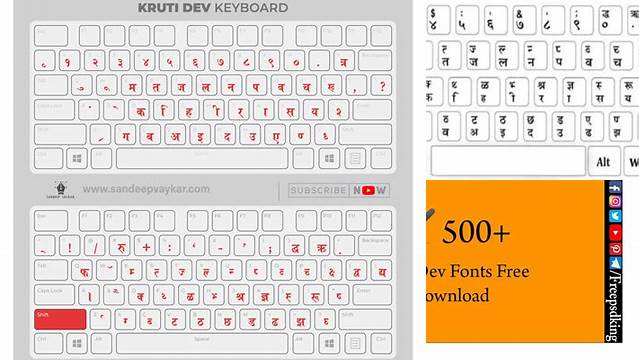
Kruti Dev Marathi Font: Free Download & Stylish Guide
1. Introduction to Kruti Dev Marathi Fonts
Kruti Dev is a widely used font family for typing in Marathi and Hindi languages, especially favored for its compatibility with various software and its traditional typewriter-like appearance. The Kruti Dev Marathi stylish font free download has become a common search term for individuals and organizations seeking to digitize Marathi content. These fonts are not just about aesthetics; they represent a significant part of digital Marathi literature and communication. Understanding the nuances of Kruti Dev and its various styles can greatly enhance your Marathi typing experience. Whether you are drafting official documents, creating artistic designs, or simply communicating with friends and family, the right Kruti Dev font can make a world of difference. The accessibility of free downloads further democratizes the use of these fonts, ensuring that Marathi language content can be created and shared widely. Remember, choosing the right font is more than just picking a style; it's about ensuring readability and cultural relevance in the digital sphere. So, let's delve deeper into the world of Kruti Dev and discover the perfect style for your needs!
2. Why Kruti Dev is Popular for Marathi Typing
The popularity of Kruti Dev for Marathi typing stems from several key factors. First and foremost, it's a legacy font that has been around for a long time, making it a standard in many government offices, educational institutions, and publishing houses. This widespread adoption means that documents created in Kruti Dev are easily shareable and viewable across different systems. Furthermore, Kruti Dev's layout closely resembles that of traditional typewriters, which many users find familiar and comfortable. This familiarity reduces the learning curve for those transitioning from typewriters to digital typing. Another reason for its popularity is the availability of numerous free downloads, making it accessible to everyone, regardless of their budget. Additionally, Kruti Dev is compatible with a wide range of software, including popular word processors and design applications. This compatibility ensures that users can seamlessly integrate Kruti Dev fonts into their existing workflows. Finally, the font's clear and legible design makes it suitable for both print and digital media, ensuring that your Marathi text looks professional and easy to read. The combination of these factors has cemented Kruti Dev's position as a go-to font for Marathi typing.
5. Different Styles and Variations of Kruti Dev Fonts
Kruti Dev isn't just a single font; it's a family of fonts that includes various styles and variations, each with its own unique aesthetic. Understanding these differences can help you choose the perfect font for your specific needs. Some common variations include Kruti Dev 010, Kruti Dev 020, and Kruti Dev 030, among others. Each variation has slight differences in character design and spacing, which can affect readability and visual appeal. For example, some variations might have bolder characters, while others might have more delicate strokes. Some styles are better suited for formal documents, while others are ideal for creative projects. Exploring the different styles within the Kruti Dev family allows you to add visual interest and personality to your Marathi text. When selecting a font, consider the purpose of your document and the overall tone you want to convey. A stylish font can make your text stand out, but it's also important to ensure that the font is legible and appropriate for the context. Experiment with different variations to find the one that best suits your needs and enhances your Marathi typing experience.
7. Typing Marathi with Kruti Dev: Keyboard Layouts and Tips
Typing Marathi with Kruti Dev requires understanding the font's unique keyboard layout, which differs significantly from the standard English QWERTY layout. Mastering this layout is crucial for efficient and accurate Marathi typing. The Kruti Dev keyboard layout is phonetic, meaning that the keys are mapped to sounds rather than characters. This can be initially challenging for those accustomed to English typing, but with practice, it becomes intuitive. There are various resources available online, such as keyboard layout diagrams and typing tutorials, that can help you learn the layout. It's also helpful to use typing practice software or websites that offer exercises specifically designed for Kruti Dev. One tip for improving your typing speed is to focus on learning the placement of the most frequently used characters first. You can also customize your keyboard layout using third-party software to better suit your personal preferences. Another helpful tip is to use online transliteration tools to convert English text into Marathi Kruti Dev, which can be useful for learning the layout and checking your typing. Remember, consistent practice is key to mastering Marathi typing with Kruti Dev. Understanding the keyboard layout and utilizing available resources will greatly enhance your typing skills and efficiency after your Kruti Dev Marathi stylish font free download.
8. Converting Other Fonts to Kruti Dev
Sometimes, you might encounter Marathi text written in other fonts and need to convert it to Kruti Dev for compatibility or editing purposes. Fortunately, several online tools and software programs can help you convert other fonts to Kruti Dev and vice versa. These converters typically work by mapping the characters from the source font to the corresponding characters in Kruti Dev. To use an online converter, simply copy and paste the text into the input box, select the source and target fonts, and click the convert button. The converted text will then be displayed in the output box, which you can copy and paste into your document. For more complex conversions or large documents, it might be more efficient to use a dedicated software program. Some popular font conversion software includes features like batch conversion, which allows you to convert multiple files at once. When converting fonts, it's important to check the converted text carefully for any errors or inconsistencies. Sometimes, certain characters might not be converted correctly, especially if the source font uses a different encoding system. Using font conversion tools can save you a significant amount of time and effort when working with Marathi text in different font formats after your Kruti Dev Marathi stylish font free download.
9. Common Issues and Troubleshooting with Kruti Dev
While Kruti Dev is a widely used font, users sometimes encounter issues when working with it. Understanding these common problems and knowing how to troubleshoot them can save you frustration and time. One common issue is that the font doesn't appear correctly in certain software applications. This can be due to various reasons, such as the font not being properly installed, the software not supporting the font, or conflicting fonts installed on the system. To resolve this, ensure that the font is correctly installed and that the software is compatible with Kruti Dev. Try restarting the software or your computer to see if that fixes the issue. Another common problem is that the Marathi characters appear as boxes or question marks. This usually indicates that the font is not selected or that the document is not encoded correctly. Make sure that Kruti Dev is selected as the font and that the document is saved in a Unicode encoding format. If you're having trouble with the keyboard layout, double-check that the correct Marathi keyboard layout is selected in your operating system settings. If you encounter any other issues, consult online forums or documentation for Kruti Dev for specific troubleshooting steps. Addressing these common issues will ensure a smoother experience with Kruti Dev Marathi fonts after your Kruti Dev Marathi stylish font free download.
10. Kruti Dev Font for Government and Official Documents
Kruti Dev font holds significant importance in government and official document creation in Maharashtra and other regions where Marathi is widely used. Its widespread adoption in government offices and legal institutions makes it a standard for official correspondence and documentation. The clarity and legibility of Kruti Dev make it suitable for formal documents, ensuring that the text is easy to read and understand. Additionally, its long-standing use in these sectors ensures compatibility across various systems and software. Many government forms, notices, and legal documents are drafted in Kruti Dev to maintain uniformity and professionalism. The font's traditional typewriter-like appearance also conveys a sense of formality and authenticity. When creating official documents in Marathi, using Kruti Dev helps ensure that the text meets the required standards and is easily accessible to a wide audience. Furthermore, government websites and online portals often use Kruti Dev for displaying Marathi content, making it essential for digital communication as well. The preference for Kruti Dev in government sectors underscores its importance in preserving Marathi language and culture in official settings. Therefore, understanding and utilizing Kruti Dev is crucial for anyone working with Marathi in government or legal contexts after your Kruti Dev Marathi stylish font free download.
11. Using Kruti Dev in Graphic Design and Creative Projects
While Kruti Dev is often associated with formal documents, it can also be effectively used in graphic design and creative projects. Its versatility allows designers to incorporate Marathi text into various visual mediums, such as posters, brochures, and websites. By using Kruti Dev Marathi stylish font free download, designers can add a touch of traditional elegance to their creations while ensuring readability. When using Kruti Dev in design projects, it's important to consider the overall aesthetic and choose a style that complements the visual elements. Experimenting with different font sizes, weights, and styles can help achieve the desired effect. Kruti Dev can be combined with other fonts to create interesting typographic compositions. For instance, you can use Kruti Dev for body text and a more modern font for headings. It's also crucial to ensure that the Marathi text is properly aligned and spaced to maintain visual harmony. Using graphic design software like Adobe Photoshop or Illustrator provides greater control over typography and allows for more creative use of Kruti Dev. Whether you're designing a poster for a Marathi cultural event or creating a website for a local business, Kruti Dev can be a valuable asset in conveying your message effectively and aesthetically.
12. Kruti Dev and Unicode Compatibility
One important aspect to consider when working with Kruti Dev is its compatibility with Unicode, the universal character encoding standard. Kruti Dev is a non-Unicode font, meaning it uses a proprietary encoding scheme that differs from Unicode. This can sometimes lead to compatibility issues when sharing documents or displaying text on different systems. Unicode fonts, such as Mangal, are generally preferred for modern applications and web content because they ensure consistent display across platforms and languages. However, Kruti Dev remains widely used in many contexts, so it's essential to understand the implications of its non-Unicode nature. When working with Kruti Dev, it's crucial to ensure that the document is saved in a format that preserves the font encoding. Using font conversion tools to switch between Kruti Dev and Unicode fonts can help mitigate compatibility issues. Additionally, many online platforms and software applications now support automatic font conversion, making it easier to work with Kruti Dev in diverse environments. Understanding the relationship between Kruti Dev and Unicode is crucial for ensuring the accurate display and exchange of Marathi text after your Kruti Dev Marathi stylish font free download.
13. Alternatives to Kruti Dev for Marathi Typing
While Kruti Dev remains a popular choice for Marathi typing, several alternatives offer similar functionality and improved Unicode compatibility. Exploring these alternatives can broaden your font selection and enhance your typing experience. One of the most widely used Unicode fonts for Marathi is Mangal, which is included with Microsoft Windows and offers excellent cross-platform compatibility. Other popular Unicode fonts for Marathi include Shivaji, Aparajita, and Kalka. These fonts provide clear and legible characters while adhering to the Unicode standard, ensuring consistent display across different devices and applications. Using Unicode fonts also simplifies tasks like web publishing and data exchange. In addition to Unicode fonts, some users also prefer transliteration-based typing methods, which allow you to type Marathi using a standard English keyboard layout. These methods use software or online tools to convert phonetic input into Marathi script. Exploring different typing methods and font options can help you find the most efficient and convenient way to type in Marathi. Whether you stick with Kruti Dev or explore alternatives, understanding the available options empowers you to make informed decisions about your Marathi typing workflow. The Kruti Dev Marathi stylish font free download might be your starting point, but it's always good to know your options.
14. Kruti Dev Training and Tutorials
Learning to type efficiently in Kruti Dev can take some practice, but numerous training resources and tutorials are available online to help you master the font. These resources cater to different learning styles and skill levels, making it easier for beginners to get started and for experienced typists to refine their skills. Many websites offer free typing tutorials that cover the Kruti Dev keyboard layout, common typing techniques, and tips for improving speed and accuracy. Video tutorials can be particularly helpful for visual learners, providing step-by-step instructions on how to type specific characters and words. Some websites also offer interactive typing games and exercises that make learning fun and engaging. For more structured training, you can consider enrolling in online courses or workshops that focus on Marathi typing. These courses often provide personalized feedback and guidance, helping you identify and overcome your typing challenges. Practicing regularly and utilizing these resources will significantly improve your Kruti Dev typing skills. Remember, consistency is key to mastering any new skill, so dedicate some time each day to practice and gradually increase your typing speed and accuracy after your Kruti Dev Marathi stylish font free download.
15. Kruti Dev Font for Web Design
Using Kruti Dev in web design can be challenging due to its non-Unicode nature. However, with the right techniques, you can effectively incorporate Kruti Dev into your website design while ensuring readability and compatibility. One approach is to use font embedding techniques, such as CSS @font-face, to include the Kruti Dev font file directly on your website. This allows visitors to view the font even if they don't have it installed on their systems. However, it's important to consider the file size of the font and optimize it for web use to avoid slowing down your website's loading time. Another approach is to convert the Kruti Dev text into images or SVG graphics, which can then be displayed on the website. This ensures that the text appears exactly as intended but might make the content less accessible to search engines and screen readers. A more modern and recommended approach is to use Unicode fonts for web content and convert existing Kruti Dev text to Unicode using online tools or software. This ensures better compatibility and accessibility while maintaining the visual integrity of the text. When using Kruti Dev or any non-Unicode font on the web, it's crucial to test your website on different browsers and devices to ensure consistent display. Balancing aesthetics with functionality is key when incorporating Kruti Dev into your web design projects. The Kruti Dev Marathi stylish font free download is just the first step; making it work online requires careful planning.
16. Kruti Dev and Marathi Language Preservation
Kruti Dev font plays a vital role in the preservation of the Marathi language and literature in the digital age. Its widespread use in various sectors, including government, education, and publishing, helps ensure that Marathi content remains accessible and relevant. By providing a standardized font for Marathi typing, Kruti Dev facilitates the creation and sharing of digital content in the language. This is particularly important for preserving traditional Marathi literature, which can be digitized and made available to a wider audience. Additionally, Kruti Dev supports the creation of new Marathi content, such as books, articles, and online resources, which contributes to the growth and evolution of the language. The accessibility of free Kruti Dev fonts also empowers individuals to create and share their own Marathi content, fostering a vibrant online community. However, it's also important to promote the use of Unicode fonts for long-term compatibility and accessibility. Balancing the use of Kruti Dev with Unicode fonts can help ensure that Marathi language and culture thrive in both traditional and digital contexts. The Kruti Dev Marathi stylish font free download is a tool for language preservation, but it's how we use it that truly matters.
17. Kruti Dev Font Licensing and Usage Rights
Before using Kruti Dev fonts, it's essential to understand the licensing and usage rights associated with them. While many Kruti Dev fonts are available for free download, it's crucial to verify the licensing terms to ensure you're using the font legally. Most free Kruti Dev fonts are licensed under terms that allow for personal and non-commercial use. However, commercial use, such as using the font in a logo or for-profit project, might require a specific license or permission from the font's creator. It's always a good practice to check the licensing information provided with the font or on the website where you downloaded it. Some websites might offer fonts under different licenses, such as open-source licenses, which allow for broader usage rights. When using Kruti Dev fonts in commercial projects, it's advisable to obtain a commercial license to avoid any potential copyright issues. Additionally, be aware of any restrictions on modifying or redistributing the font. Understanding the licensing terms ensures that you're using Kruti Dev fonts responsibly and legally. So, while you enjoy your Kruti Dev Marathi stylish font free download, remember to respect the creator's rights.
18. The Future of Kruti Dev in the Digital World
The future of Kruti Dev in the digital world is intertwined with the ongoing evolution of technology and language computing. While Unicode fonts are becoming increasingly prevalent, Kruti Dev still holds a significant place in many sectors, particularly in government and legacy systems. However, the shift towards Unicode is inevitable, and it's important to consider how Kruti Dev can adapt to this changing landscape. One potential future for Kruti Dev is through conversion tools and compatibility solutions that allow seamless integration with Unicode-based systems. This would enable users to continue working with Kruti Dev while ensuring compatibility with modern platforms and applications. Another possibility is the development of Unicode-compatible fonts that closely resemble the Kruti Dev aesthetic, providing a smooth transition for users accustomed to the font. Additionally, efforts to preserve Kruti Dev encoding and typing methods can help maintain its legacy and ensure that historical documents and content remain accessible. Ultimately, the future of Kruti Dev depends on balancing its legacy with the need for modern standards and compatibility. The Kruti Dev Marathi stylish font free download is a piece of history, but its future is yet to be written.
19. Kruti Dev vs. Unicode Fonts: A Comparison
When it comes to Marathi typing, the debate between Kruti Dev and Unicode fonts is a significant one. Understanding the differences between these two font types is crucial for making informed decisions about your typing workflow. Kruti Dev, as a non-Unicode font, uses a proprietary encoding system, which can lead to compatibility issues across different platforms and applications. Unicode fonts, on the other hand, use a universal character encoding standard, ensuring consistent display across various systems and languages. One of the main advantages of Unicode fonts is their ability to support a wide range of characters and languages, making them ideal for multilingual documents and web content. Kruti Dev, while widely used in certain sectors, is limited in its character support and can sometimes display incorrectly on systems without the font installed. However, Kruti Dev's familiarity and typewriter-like appearance make it a preferred choice for many users, especially in government and legal contexts. Converting between Kruti Dev and Unicode fonts is possible using online tools and software, but it's important to check the converted text for accuracy. Ultimately, the choice between Kruti Dev and Unicode fonts depends on your specific needs and priorities. While you may have started with a Kruti Dev Marathi stylish font free download, understanding Unicode is key for the future.
20. Creating Stylish Marathi Content with Kruti Dev
Creating stylish Marathi content with Kruti Dev involves more than just selecting the font; it's about using typography effectively to convey your message and engage your audience. While Kruti Dev has a traditional appearance, it can be used creatively to produce visually appealing content. Experimenting with different font sizes, weights, and styles can help you create emphasis and hierarchy in your text. Using bold and italic styles strategically can draw attention to key words and phrases. Additionally, consider the overall layout and spacing of your text to ensure readability and visual balance. Combining Kruti Dev with other fonts can also add visual interest to your designs. For example, you can use a modern font for headings and Kruti Dev for body text. When creating content for the web, it's important to optimize your text for online viewing, using appropriate font sizes and line spacing. Utilizing graphic design software can provide greater control over typography and allow for more creative use of Kruti Dev. Whether you're designing a poster, creating a presentation, or writing a blog post, thoughtful typography can enhance the impact of your Marathi content. So, unleash your creativity with your Kruti Dev Marathi stylish font free download and make your content shine.
21. Kruti Dev Keyboard Shortcuts and Efficiency Tips
To maximize your efficiency when typing in Kruti Dev, mastering keyboard shortcuts and implementing various typing tips can make a significant difference. While the Kruti Dev layout is phonetic, it can be initially challenging to remember the key mappings. Creating a cheat sheet of frequently used characters and keeping it handy can be a helpful starting point. Many software applications also allow you to customize keyboard shortcuts, enabling you to assign specific characters or commands to your preferred key combinations. Practicing typing regularly and focusing on accuracy over speed can improve your muscle memory and reduce errors. Using online typing tutors and games can make the learning process more engaging and fun. Another helpful tip is to break down complex words into smaller phonetic components, which can simplify the typing process. Additionally, consider using a wrist rest or ergonomic keyboard to prevent strain and improve comfort during long typing sessions. Exploring different typing techniques, such as touch typing, can also boost your speed and accuracy over time. Remember, consistent practice and the use of keyboard shortcuts and efficiency tips can significantly enhance your Kruti Dev typing skills. The Kruti Dev Marathi stylish font free download is just the beginning; efficient typing is the goal.
22. Kruti Dev Font for Print Media
Kruti Dev font is a popular choice for print media in Marathi, thanks to its clear and legible design that translates well to printed materials. Whether you're creating books, newspapers, magazines, or brochures, Kruti Dev can help ensure that your Marathi text is easily readable and visually appealing. When using Kruti Dev for print, it's important to consider factors such as font size, line spacing, and kerning to optimize readability. Choosing an appropriate font size depends on the target audience and the type of publication. For example, books might require a smaller font size than posters. Proper line spacing and kerning can prevent text from appearing cramped or too spaced out. Using bold and italic styles strategically can create emphasis and hierarchy in your printed content. Additionally, consider the paper quality and printing method, as these can affect the final appearance of the text. When designing for print, it's crucial to use professional layout software that provides precise control over typography and page design. Testing your designs by printing proofs can help you identify any potential issues before the final print run. With careful planning and attention to detail, Kruti Dev can be a valuable asset for creating high-quality Marathi print media. Your Kruti Dev Marathi stylish font free download is ready to make its mark in the printed world.
23. Kruti Dev Font for Digital Publishing
In the realm of digital publishing, Kruti Dev font presents both opportunities and challenges. While Kruti Dev's familiarity and readability make it a viable option for e-books and online articles, its non-Unicode nature requires careful consideration to ensure compatibility and accessibility. When using Kruti Dev for digital publishing, it's essential to embed the font file within your e-book or document to ensure that it displays correctly on different devices. This prevents the text from reverting to a default font if the reader doesn't have Kruti Dev installed. However, embedding fonts can increase the file size of your publication. Another approach is to convert the Kruti Dev text to images or SVG graphics, which ensures consistent display but can make the content less accessible to screen readers and search engines. A more modern and recommended approach is to convert the text to a Unicode font, such as Mangal, which ensures broader compatibility and accessibility. When publishing online articles or web content, using Unicode fonts is generally preferred for optimal display across different browsers and platforms. Testing your digital publications on various devices and browsers can help identify any potential display issues. Balancing the use of Kruti Dev with Unicode fonts is key to successful Marathi digital publishing. Your Kruti Dev Marathi stylish font free download can be a starting point, but consider the wider digital landscape.
24. Legal Considerations When Using Kruti Dev Fonts
When using Kruti Dev fonts, it's crucial to be aware of the legal considerations surrounding font licensing and copyright. While many Kruti Dev fonts are available for free download, this doesn't automatically grant you unlimited usage rights. It's essential to check the specific licensing terms associated with the font to ensure you're using it legally. Most free fonts are licensed for personal and non-commercial use, but commercial use might require a separate license or permission from the font's creator. This is particularly important if you're using the font in a logo, advertisement, or other for-profit project. The licensing terms typically outline what you're allowed to do with the font, including whether you can modify it, redistribute it, or embed it in documents or websites. If you're unsure about the licensing terms, it's best to contact the font's creator or the website where you downloaded it for clarification. Using a font without the appropriate license can lead to legal issues and financial penalties. Therefore, always prioritize respecting the intellectual property rights of font creators. So, before you use that Kruti Dev Marathi stylish font free download, do your legal homework.
25. Kruti Dev Font for Email Communication
Using Kruti Dev font in email communication can be a practical way to correspond in Marathi, but it's important to consider compatibility and readability. Since email clients and devices vary in their font support, there's a risk that your Kruti Dev text might not display correctly for all recipients. If the recipient doesn't have Kruti Dev installed or their email client doesn't support the font, the text might appear as boxes, question marks, or a different font altogether. To mitigate this issue, you can use a few strategies. One approach is to embed the Kruti Dev font in your email, but this isn't always supported by email clients and can increase the email size. Another option is to send the email in HTML format and specify Kruti Dev as the font, but this still relies on the recipient's email client to support the font. A safer approach is to use Unicode fonts for email communication, as they are widely supported across different platforms and devices. You can also include a note in your email specifying that the message is written in Kruti Dev and providing a link to download the font. If you're sending important documents or attachments, it's best to use a PDF format, which preserves the font and formatting. While your Kruti Dev Marathi stylish font free download might look great on your end, consider the recipient's experience.
26. Kruti Dev and Social Media
Using Kruti Dev on social media platforms presents some unique considerations due to the diverse range of devices and browsers users employ. While you can type in Kruti Dev and copy-paste the text into your social media posts, there's no guarantee that it will display correctly for all viewers. Most social media platforms use Unicode fonts as their default, meaning that Kruti Dev text might appear as unreadable characters if the viewer doesn't have the font installed. To ensure broader compatibility, it's generally recommended to use Unicode fonts for social media posts. However, if you want to use Kruti Dev, you can create images of your text and post them as photos. This ensures that the text displays exactly as you intended but can make it less accessible to screen readers and search engines. Another option is to use a Kruti Dev to Unicode converter to transform your text before posting it. When using Kruti Dev on social media, it's also important to be mindful of character limits and the overall visual appearance of your posts. Balancing aesthetics with accessibility is key to effective social media communication. So, while you've got your Kruti Dev Marathi stylish font free download, think about how it will look on everyone else's screens.
27. Preserving Marathi Culture with Kruti Dev
Kruti Dev font plays a significant role in preserving Marathi culture by facilitating the creation and dissemination of content in the Marathi language. Its widespread use in various sectors, including education, publishing, and government, helps maintain the language's presence in the digital world. By providing a standardized font for Marathi typing, Kruti Dev enables the digitization of traditional Marathi literature, making it accessible to a wider audience. This is crucial for preserving cultural heritage and ensuring that future generations can access and appreciate Marathi literary works. Additionally, Kruti Dev supports the creation of new Marathi content, such as books, articles, and websites, which contributes to the vibrancy and evolution of the language. The availability of free Kruti Dev fonts empowers individuals to create and share their own Marathi content, fostering a strong sense of community and cultural identity. However, it's also important to balance the use of Kruti Dev with Unicode fonts to ensure long-term compatibility and accessibility. Preserving Marathi culture involves embracing both traditional and modern technologies. Your Kruti Dev Marathi stylish font free download is a tool for cultural preservation, but it's how you use it that truly counts.
28. Tips for Choosing the Right Kruti Dev Style
Choosing the right Kruti Dev style for your project involves considering several factors, including the purpose of your text, the target audience, and the overall aesthetic you want to achieve. Kruti Dev isn't just a single font; it's a family of fonts with various styles and variations. Some styles are better suited for formal documents, while others are ideal for creative projects. When selecting a Kruti Dev style, start by considering the readability of the font. A clear and legible font is crucial for ensuring that your text is easily understood. Experiment with different font sizes and weights to see how they affect readability. Also, consider the overall tone and style of your text. A formal document might require a more traditional Kruti Dev style, while a creative project might benefit from a more decorative or stylized font. If you're creating content for the web, ensure that the Kruti Dev style you choose is compatible with web browsers and displays correctly across different devices. It's often helpful to test your text with different Kruti Dev styles to see which one works best. Remember, the right Kruti Dev style can enhance the impact of your message and create a visually appealing design. So, explore the different styles available after your Kruti Dev Marathi stylish font free download and find the perfect fit.
29. Common Mistakes to Avoid When Using Kruti Dev
When using Kruti Dev, there are several common mistakes that users often make, which can lead to compatibility issues, display errors, or readability problems. Being aware of these mistakes and taking steps to avoid them can help ensure a smoother and more professional typing experience. One common mistake is failing to install the font correctly, which can result in the text not displaying properly. Always follow the installation instructions carefully and restart your computer if necessary. Another mistake is not selecting the correct Kruti Dev font in your software application. Make sure that you've chosen Kruti Dev from the font list before you start typing. Using the wrong keyboard layout is another frequent error, as the Kruti Dev layout differs from the standard English layout. Double-check that you have the Marathi keyboard layout selected. Failing to embed the font in documents or websites can lead to display issues for users who don't have Kruti Dev installed. Always embed the font or use a Unicode alternative. Not checking the converted text after using a font converter is another common mistake, as conversions can sometimes introduce errors. Always proofread your text carefully. By avoiding these common mistakes, you can ensure that your Kruti Dev text displays correctly and looks professional. The Kruti Dev Marathi stylish font free download is a great start, but careful usage is key.
30. Resources for Learning More About Marathi Typography
To deepen your understanding of Marathi typography and enhance your skills in using fonts like Kruti Dev, numerous resources are available online and offline. These resources cater to different learning styles and levels of expertise, making it easier for you to expand your knowledge and improve your typographic abilities. Many websites and blogs offer articles, tutorials, and guides on Marathi typography, covering topics such as font selection, layout design, and typesetting principles. Online forums and communities dedicated to Marathi language and culture can provide valuable insights and support. You can also find video tutorials on platforms like YouTube that demonstrate various typographic techniques and software tools. For a more structured learning experience, consider enrolling in online courses or workshops that focus on typography and graphic design. Books on typography and design can also provide a comprehensive understanding of the subject. Additionally, exploring the work of professional Marathi typographers and designers can inspire you and give you new ideas. Practicing regularly and experimenting with different fonts and layouts is essential for developing your typographic skills. So, take advantage of the available resources and embark on a journey to master Marathi typography after your Kruti Dev Marathi stylish font free download.